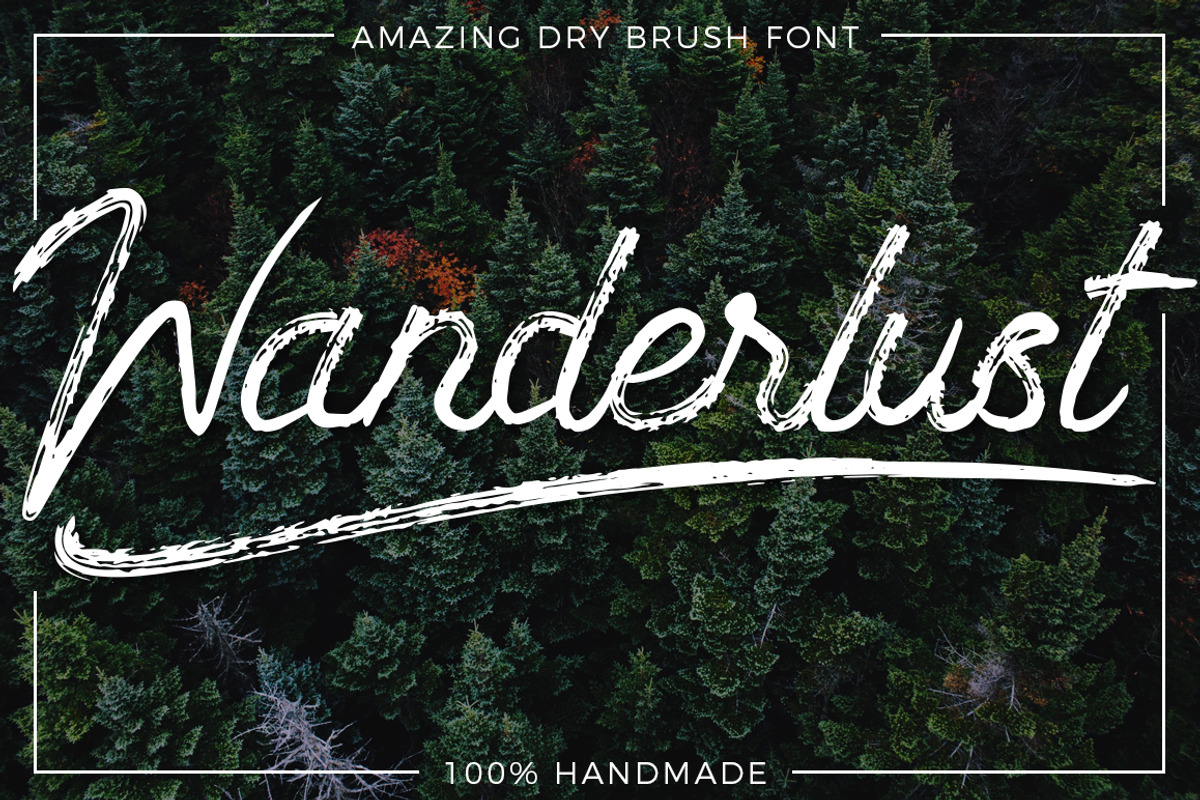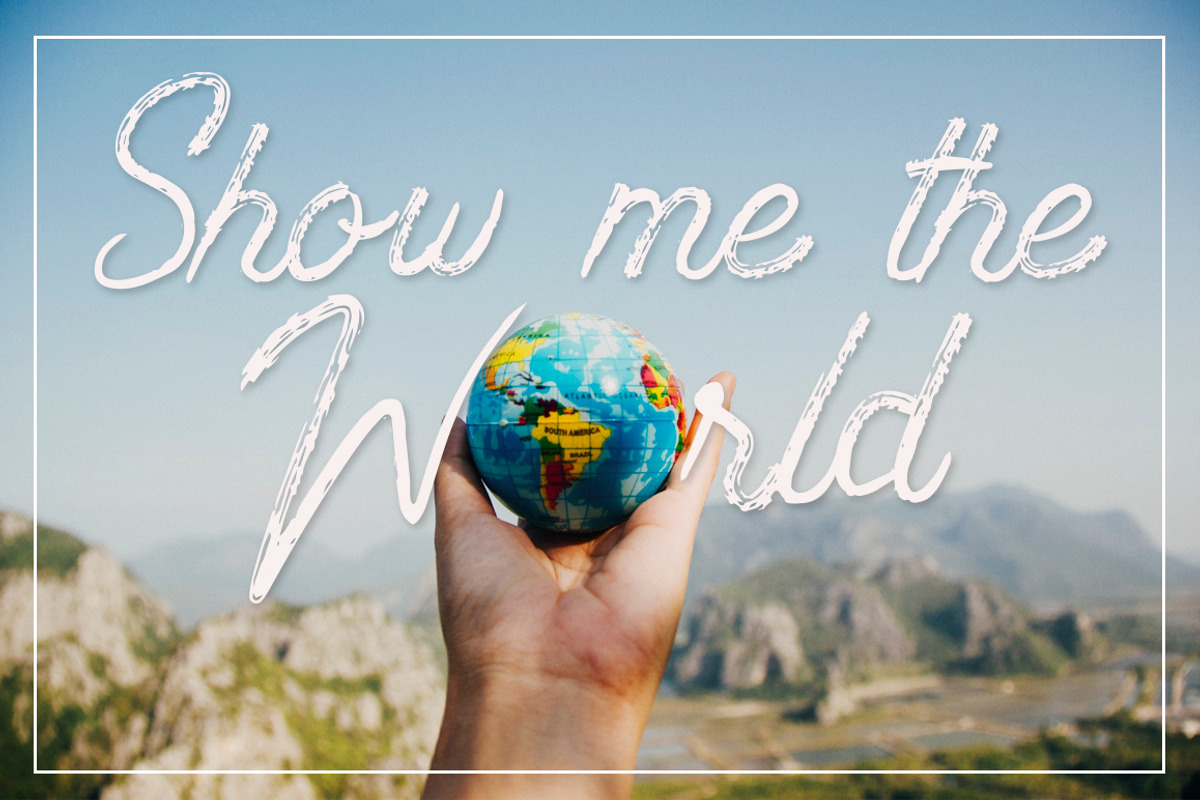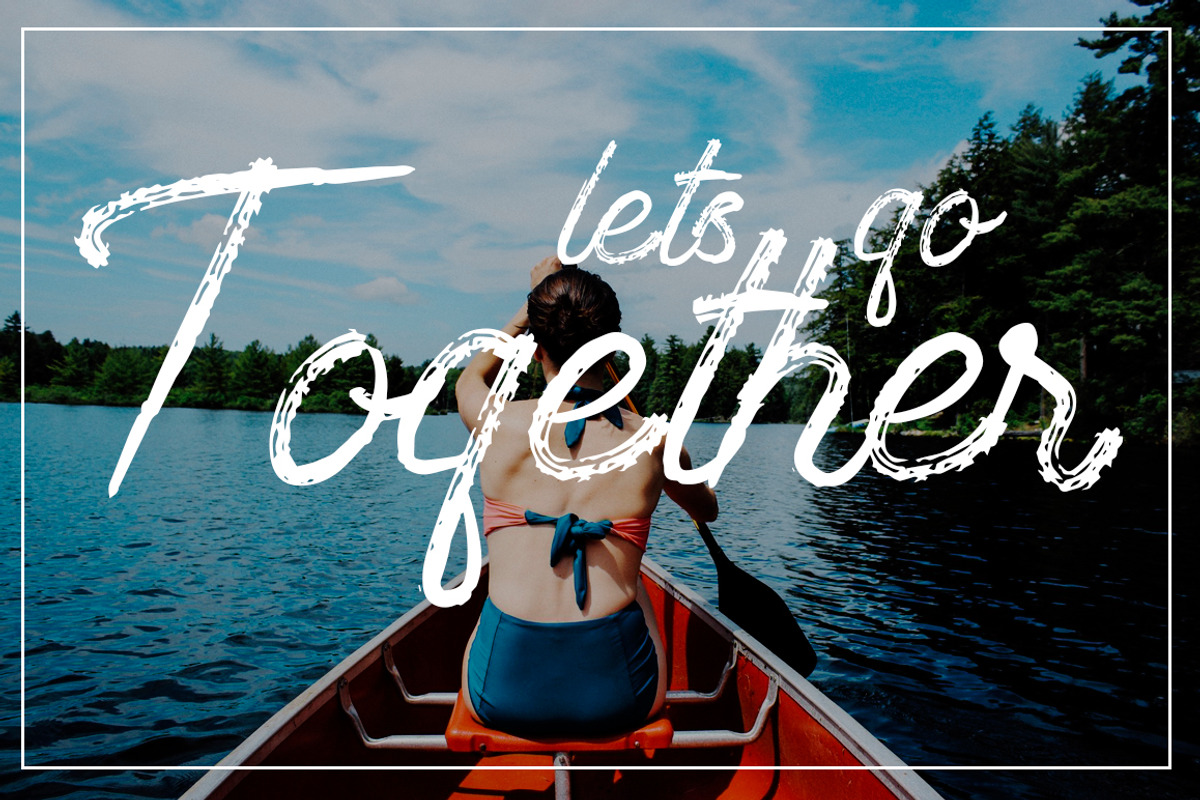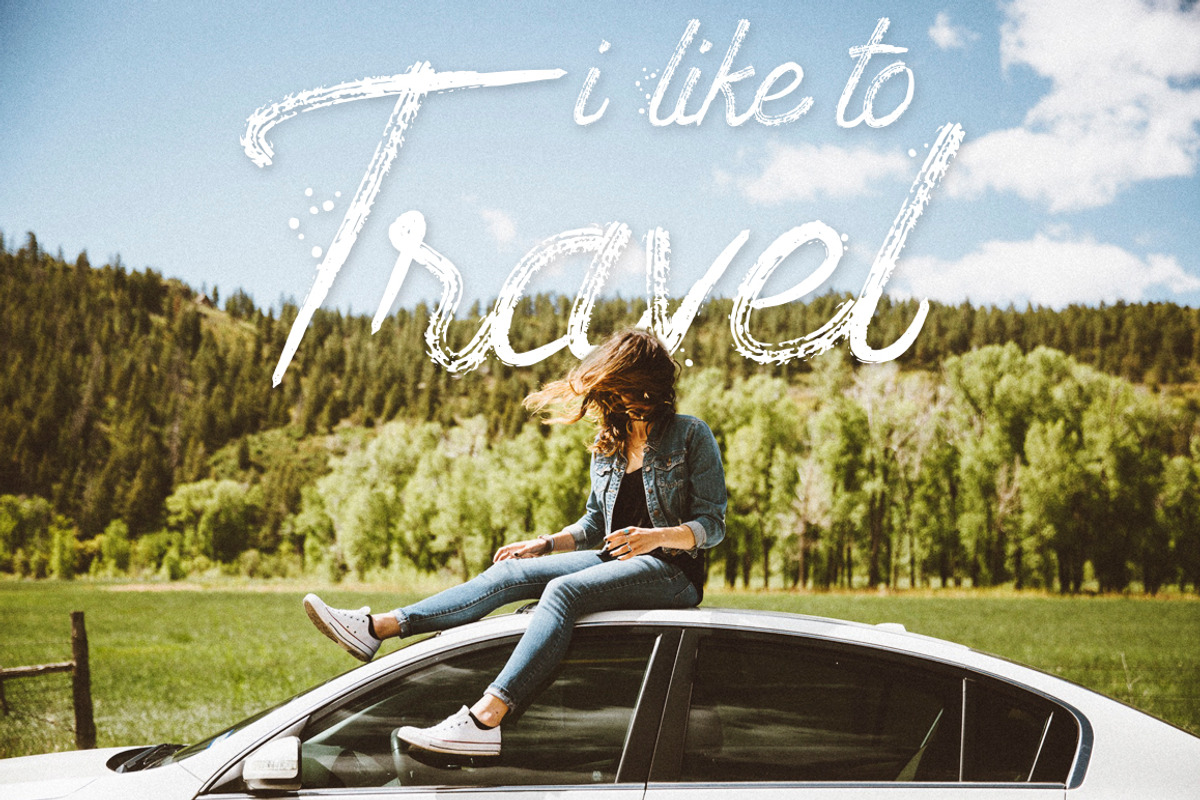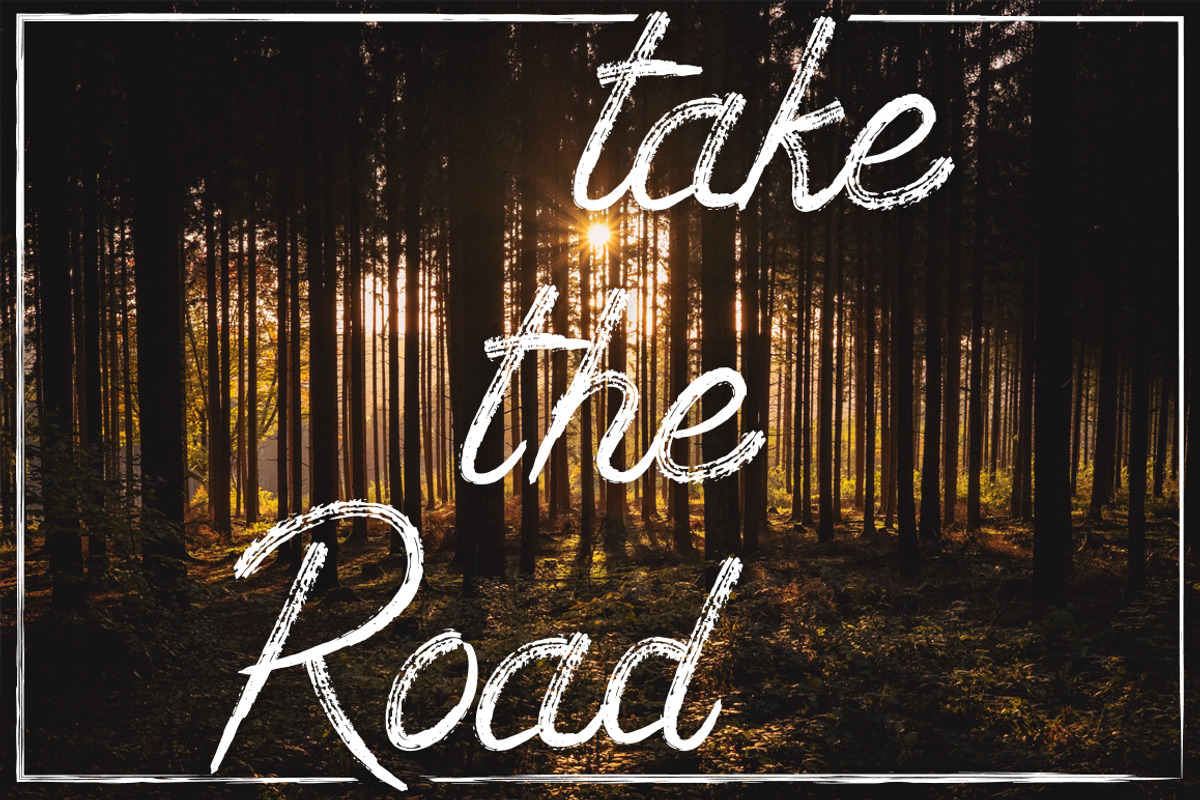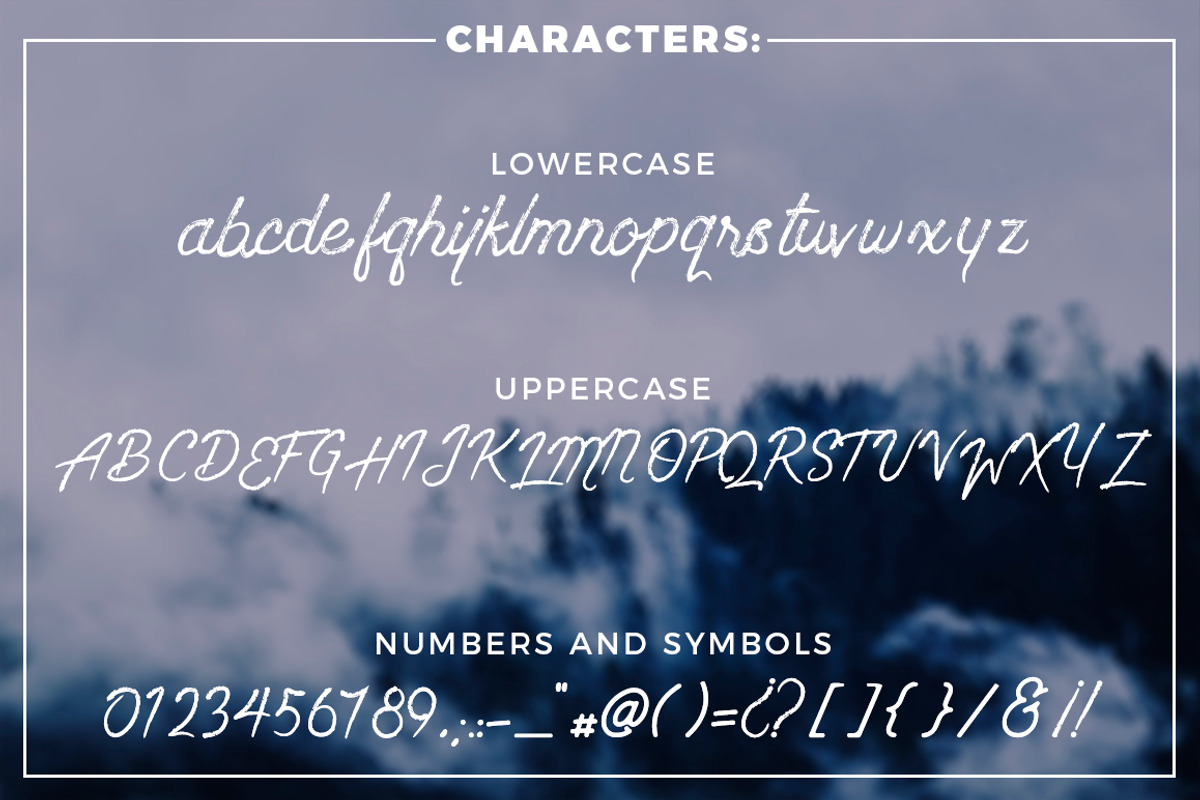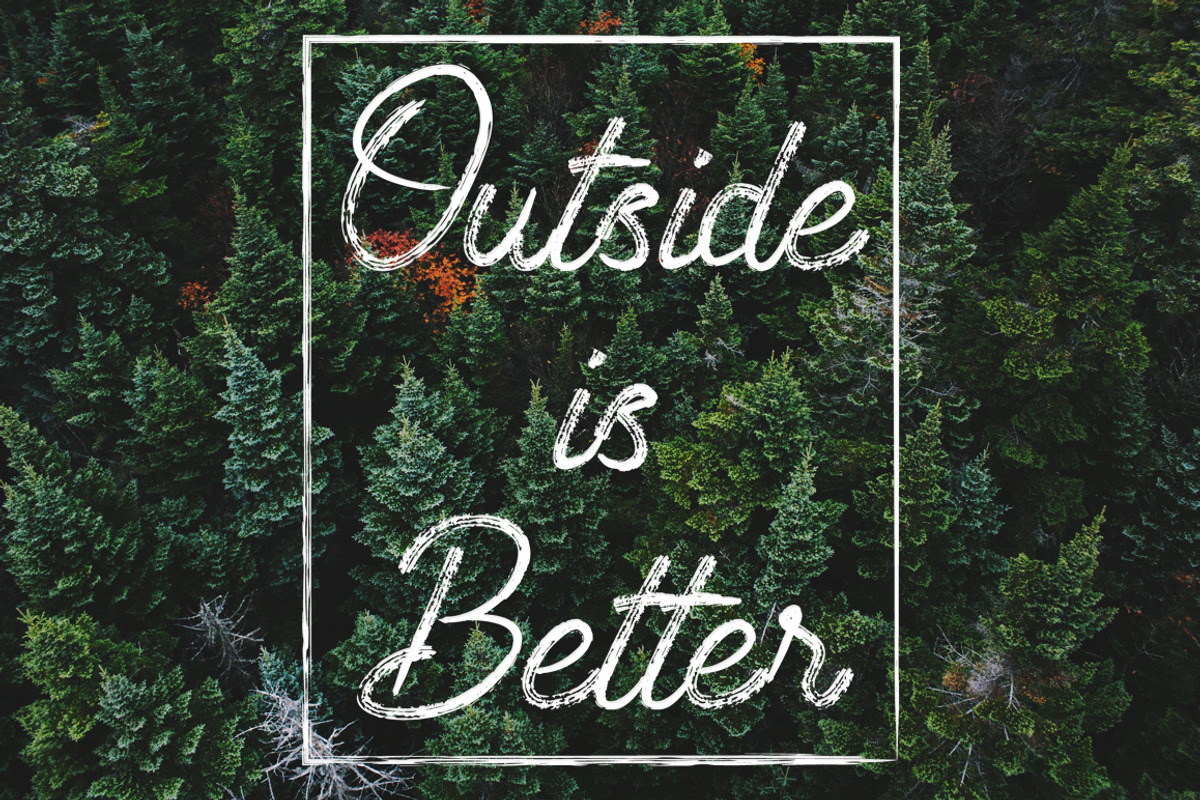
Wanderlust - Dry brush font
Hey! I present to you this new typeface totally handmade. As you can clearly see it have a dry brush texture, this can give your designs that handmade touch that you always wanted. This cursive, stylish and beautiful font is perfect for creating logos, invitations, illustrations, etc.
Create logos, invitations, branding, presentations, and more